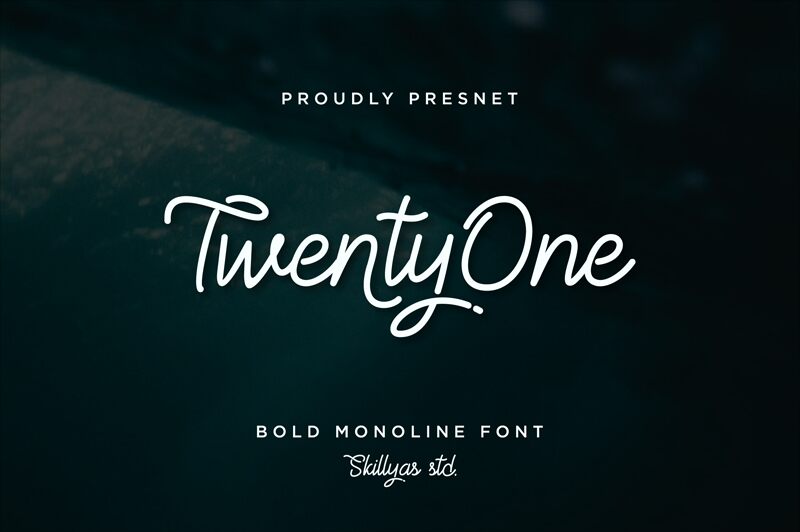
TwentyOne is semi bold monoline script font and its perfect for branding projects, wedding designs, social media posts, advertisements, product packaging, product designs, label, photography, watermark, invitation, stationery and any projects that need a unique handwriting taste.
TwentyOne
Skillyas std